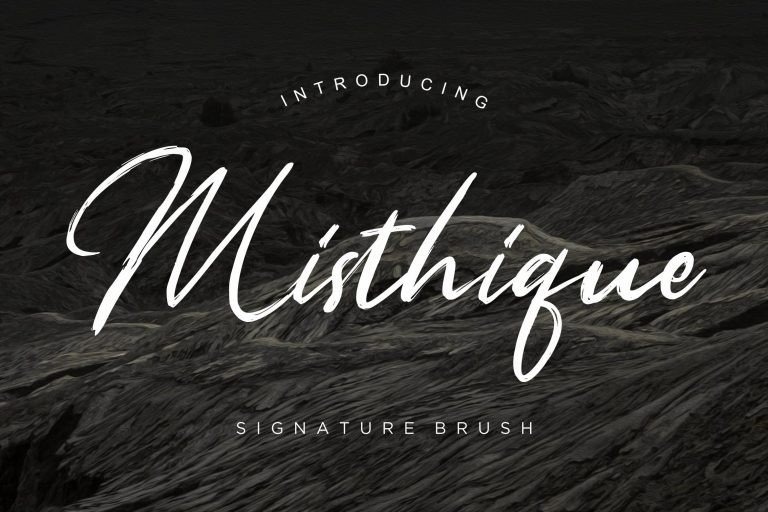
Misthique Font
Misthique Brush Font, designed by Creatype Studio is Handwritten marker font that looks neat and nice to look at, so it will be suitable to use for your design projects. Misthique is perfect for branding projects, logo, wedding designs, social media posts, advertisements, product packaging, product designs, label, photography, watermark, invitation, stationery and any projects that need handwriting taste.